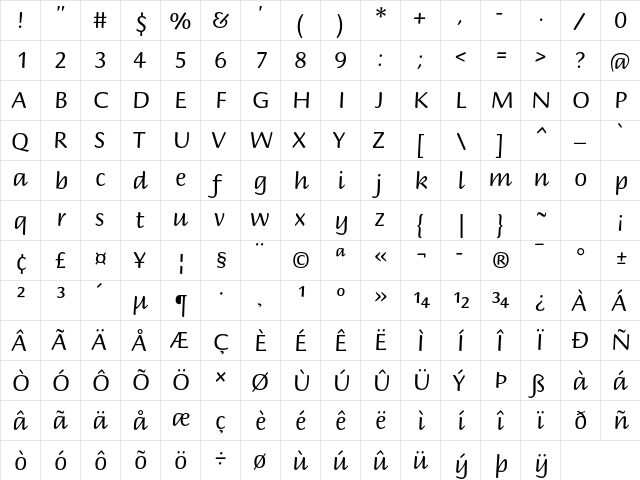
Briem Script Std Regular Font Preview
Briem Script Std Regular
Briem Script Std Regular Font Details
| Designer | Gunnlaugur SE Briem |
Design Context for Briem Script Std Typeface
Briem Script Std brings a calligraphic fluidity to the page — its connecting strokes and expressive curves give it an unmistakably human quality.
Font Pairing: Combine Briem Script Std with a simple geometric sans for maximum contrast — the tension between flowing curves and clean structure is a classic typographic pairing.
Pro Tip: Pair Briem Script Std with a clean sans-serif for supporting text. The contrast between fluid script and geometric structure creates an elegant typographic hierarchy.